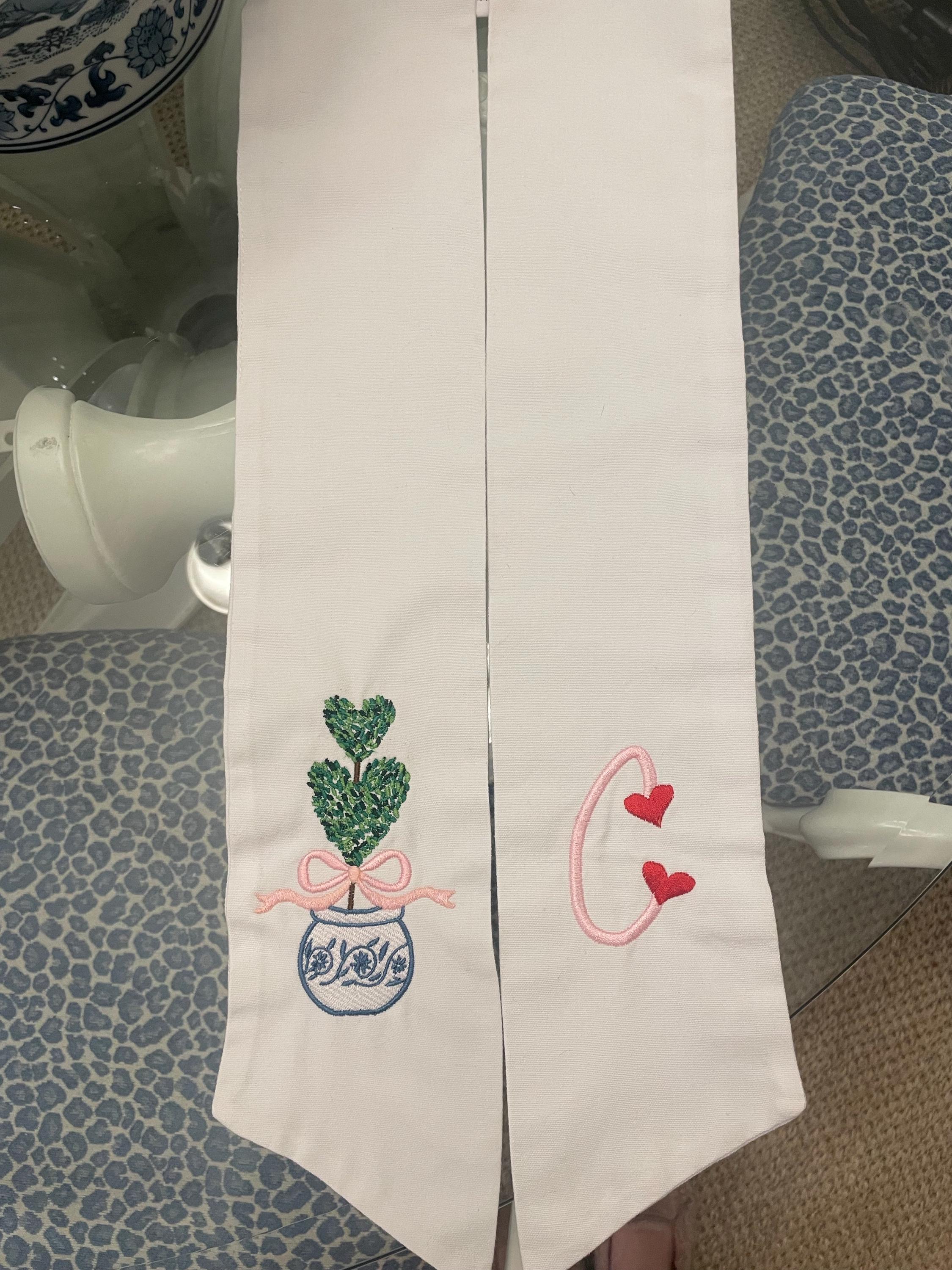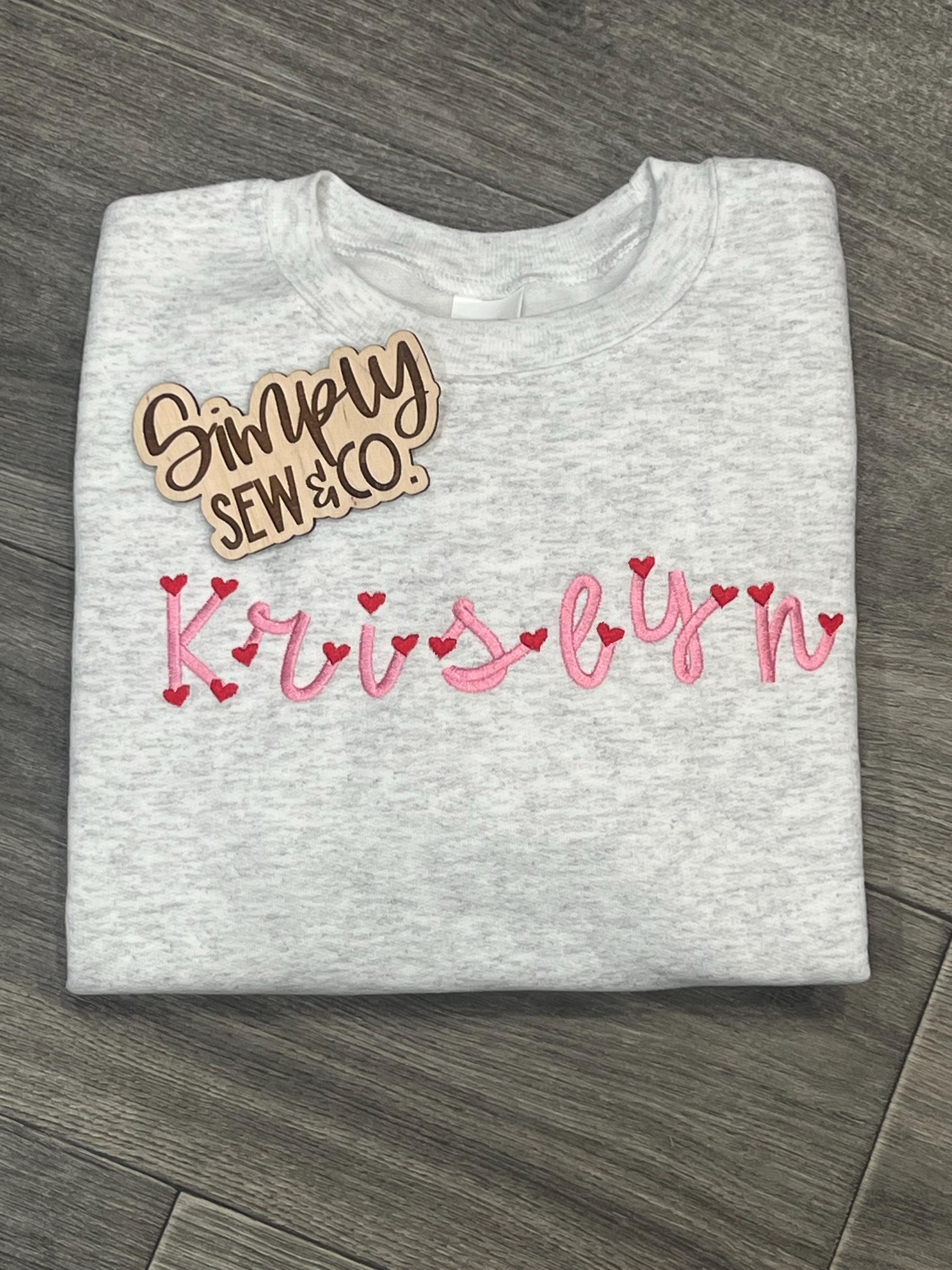
Hearts Satin Thin Line FONT machine embroidery designs in assorted mini sizes, handwritten script font alphabet letters kids name BX incl
Whole alphabet: uppercase and lowercase letters, numbers
The cutest heart font perfect for v-day!! 🩷🩷
Printed out nicely! Very cute!
I love love love this font. Stitched out perfectly.